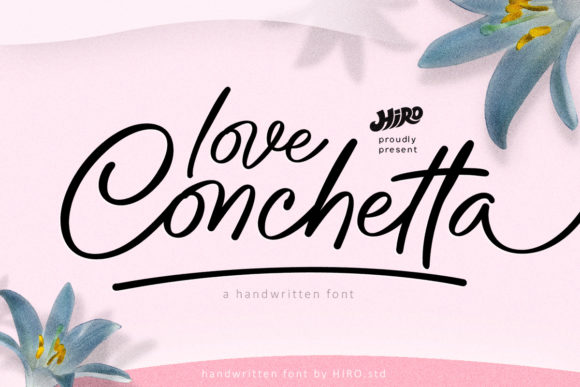
Love Conchetta Font: A Designer’s Branding Case Study
Testing Love Conchetta for Boutique Skincare Brand Identity
When I first opened a blank artboard to begin a visual identity project for a new organic skincare line, Love Conchetta was the Script Handwritten typeface I immediately pulled into my testing phase. As a designer, I am constantly searching for Fonts that bridge the gap between traditional elegance and modern accessibility, and this specific font promised exactly that balance. The brief required a look that felt artisanal and expensive without appearing dated or overly frilly, which is often the challenge with calligraphic styles. Love Conchetta is an exquisite handwritten font, masterfully designed to become a true favorite in my digital asset library because it solved this exact tension during the initial mood boarding process. Rather than feeling like a generic script, it brought a bespoke quality to the screen that made the preliminary sketches feel intentional and grounded.
Evaluating Love Conchetta for Logo Design and Wordmarks
Incorporating Love Conchetta into the primary logo exploration revealed how its classy calligraphic influences translate into a functional brand mark within professional Fonts collections. For this skincare project, the client needed a wordmark that could stand alone on small product caps while retaining legibility and charm. Many Script Handwritten options fail at smaller sizes due to excessive swashes or thin hairlines that disappear in print, but this typeface maintained its structural integrity beautifully. I found myself falling in love with the way the letterforms connect; they are fluid yet deliberate, avoiding the chaotic tangles that can plague lesser scripts. When designing the logotype, I utilized the font’s natural rhythm to create a balanced lockup that felt contemporary and fresh rather than stuck in a vintage aesthetic. This adaptability is crucial for designers who need a single display font to work across both large signage and microscopic packaging details.
Pairing Love Conchetta with Sans Serif Fonts for Packaging Labels
Creating a cohesive packaging system required pairing Love Conchetta with a clean sans serif to ensure the Script Handwritten elements remained the focal point without sacrificing readability. In my workflow, I tested this font alongside several geometric sans serifs and minimalist serifs to see which combination best supported the brand's premium positioning. Love Conchetta acted as the perfect accent font for product names and key ingredient highlights, while the supporting typeface handled the regulatory text and instructions. The contrast between the organic flow of the script and the structured rigidity of the sans serif created a visual hierarchy that guided the customer’s eye naturally across the label. This interplay is essential in packaging design, where the goal is to communicate luxury through typography while maintaining strict functional clarity. The font’s contemporary nature meant it didn't fight against modern layout grids, allowing for a sophisticated label design that felt current and shelf-ready.
Using Love Conchetta for Social Media Graphics and Digital Headers
Digital application is often where decorative Fonts struggle, but applying Love Conchetta to Instagram templates and website hero sections proved its versatility as a modern web typeface. For the skincare brand’s social media strategy, we needed headlines that stopped the scroll without looking like spammy advertising. This Script Handwritten style provided the necessary warmth and human touch that sterile digital interfaces often lack. I used it for quote overlays, promotional announcements, and story highlights, finding that its exquisite details rendered crisply even on mobile screens. When designing the website header, the font added an immediate sense of craftsmanship that aligned perfectly with the brand’s handmade ethos. It is important to note that while Love Conchetta is stunning for display purposes, I reserved it strictly for short-form text to preserve its impact and ensure accessibility standards were met for web users.
Implementing Love Conchetta in Editorial Layouts and Print Collateral
Expanding the brand identity into physical touchpoints like business cards and thank-you inserts demonstrated how Love Conchetta performs in traditional editorial design contexts alongside standard body Fonts. There is a tangible difference when a Script Handwritten font is printed on textured paper versus viewed on a backlit screen, and this typeface translated exceptionally well to uncoated stock. I used it for personalized sign-offs and subtle background watermarks, leveraging its delicate strokes to add depth without overwhelming the minimal layout. The ink spread on physical media actually enhanced the calligraphic feel, giving the printed materials a tactile richness that reinforced the brand’s artisanal narrative. For designers working on stationery suites or luxury invitations, this behavior on paper is a significant selling point. It proves that the font isn't just a digital novelty but a robust typographic tool capable of elevating physical brand experiences.
Why Designers Fall in Love With Contemporary Calligraphy Assets
Ultimately, integrating Love Conchetta into a real-world branding project highlighted why it stands out among the saturated market of decorative Fonts available today. The phrase "fall in love with" isn't just marketing copy here; it reflects the genuine relief a designer feels when a Script Handwritten typeface behaves predictably and beautifully across diverse applications. It avoids the common pitfalls of being too ornate for commerce or too simple for luxury, striking a sweet spot that serves both the aesthetic vision and the business goals. Whether you are crafting a visual identity for a boutique, a café, or a creative studio, this font offers a sophisticated solution that feels custom-drawn. Its ability to maintain classy calligraphic influences while feeling contemporary and fresh makes it a go-to recommendation for peers seeking to elevate their typographic palette. By choosing typefaces that offer this level of refinement and utility, we not only improve our current projects but also build a more versatile and professional design toolkit for the future.